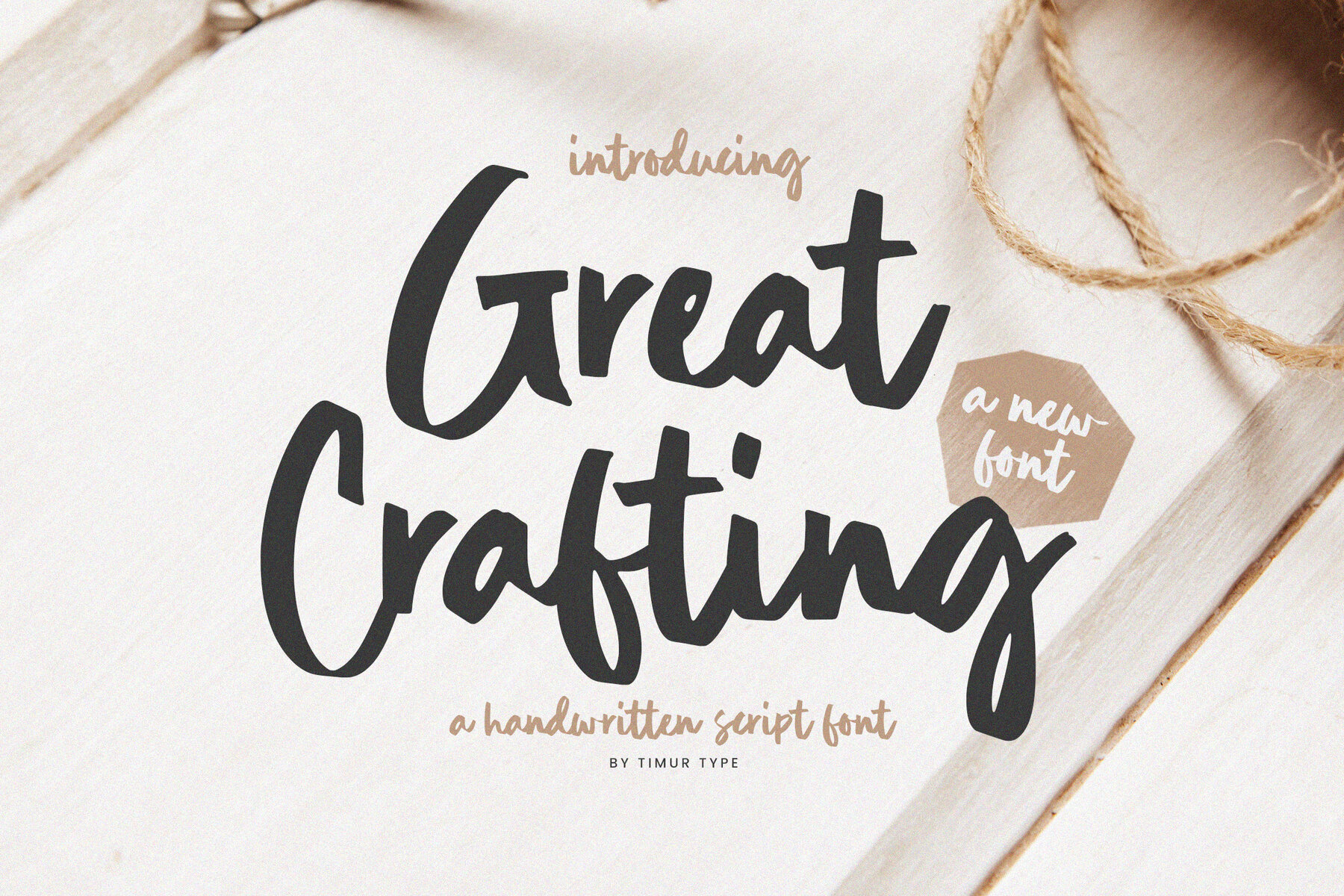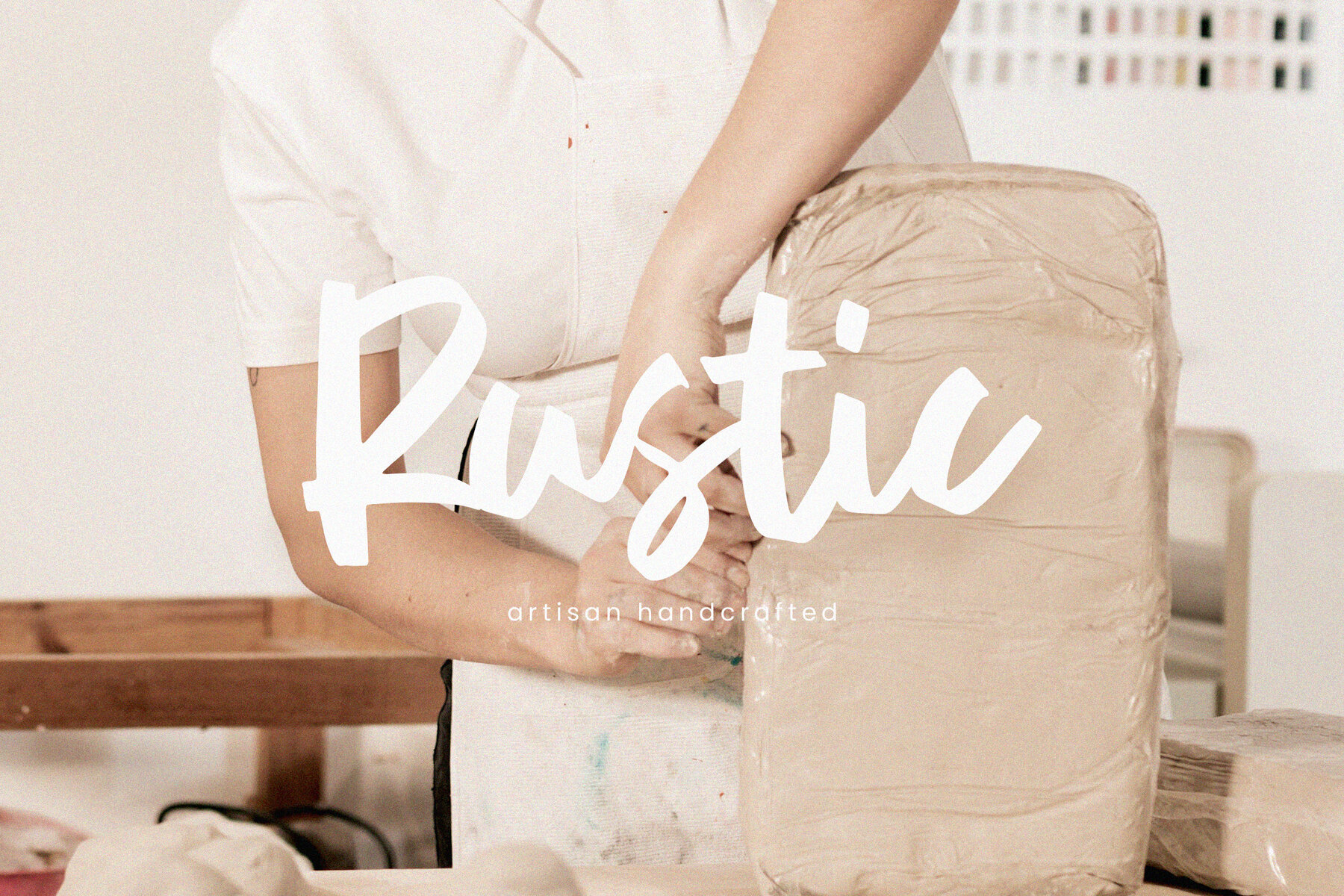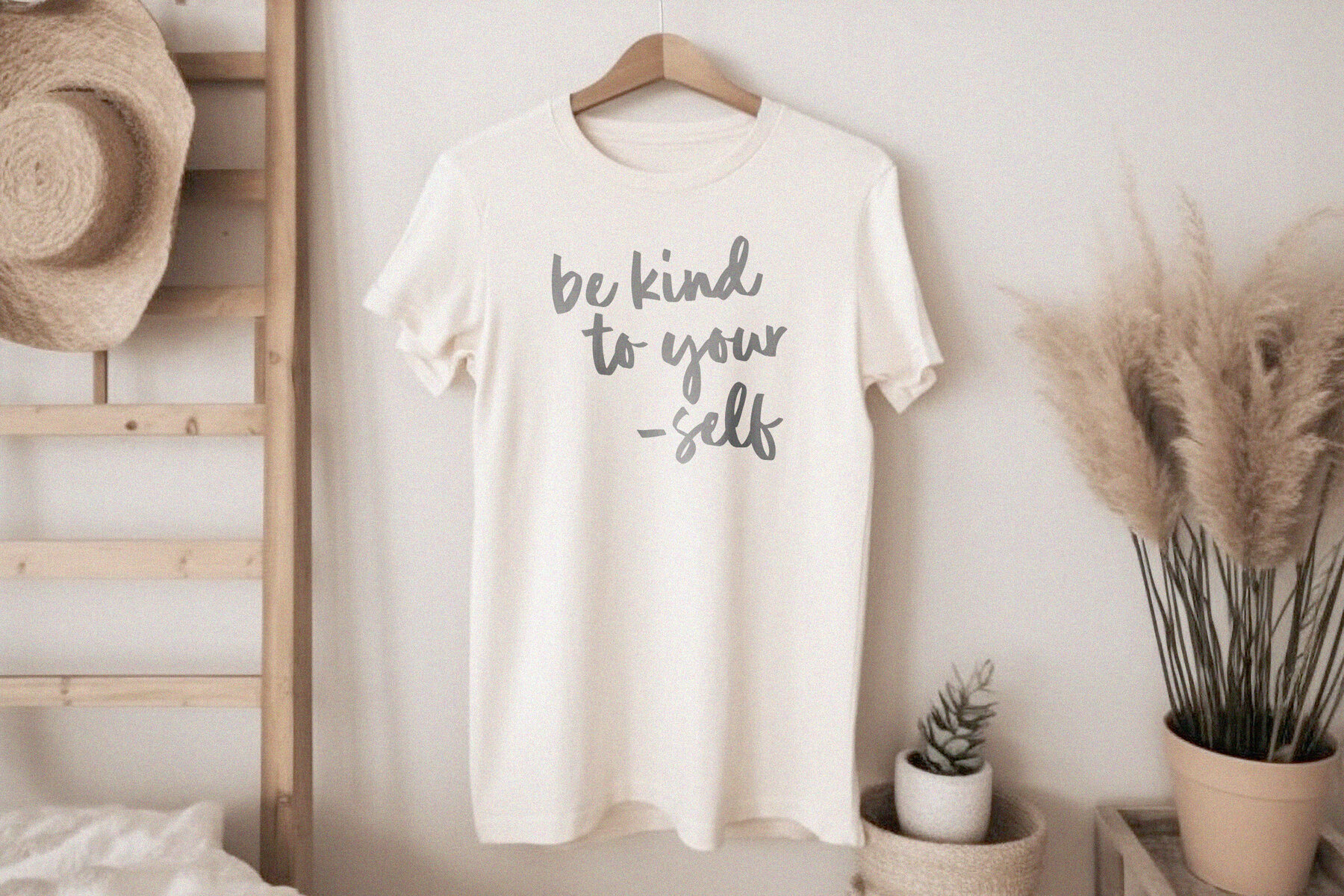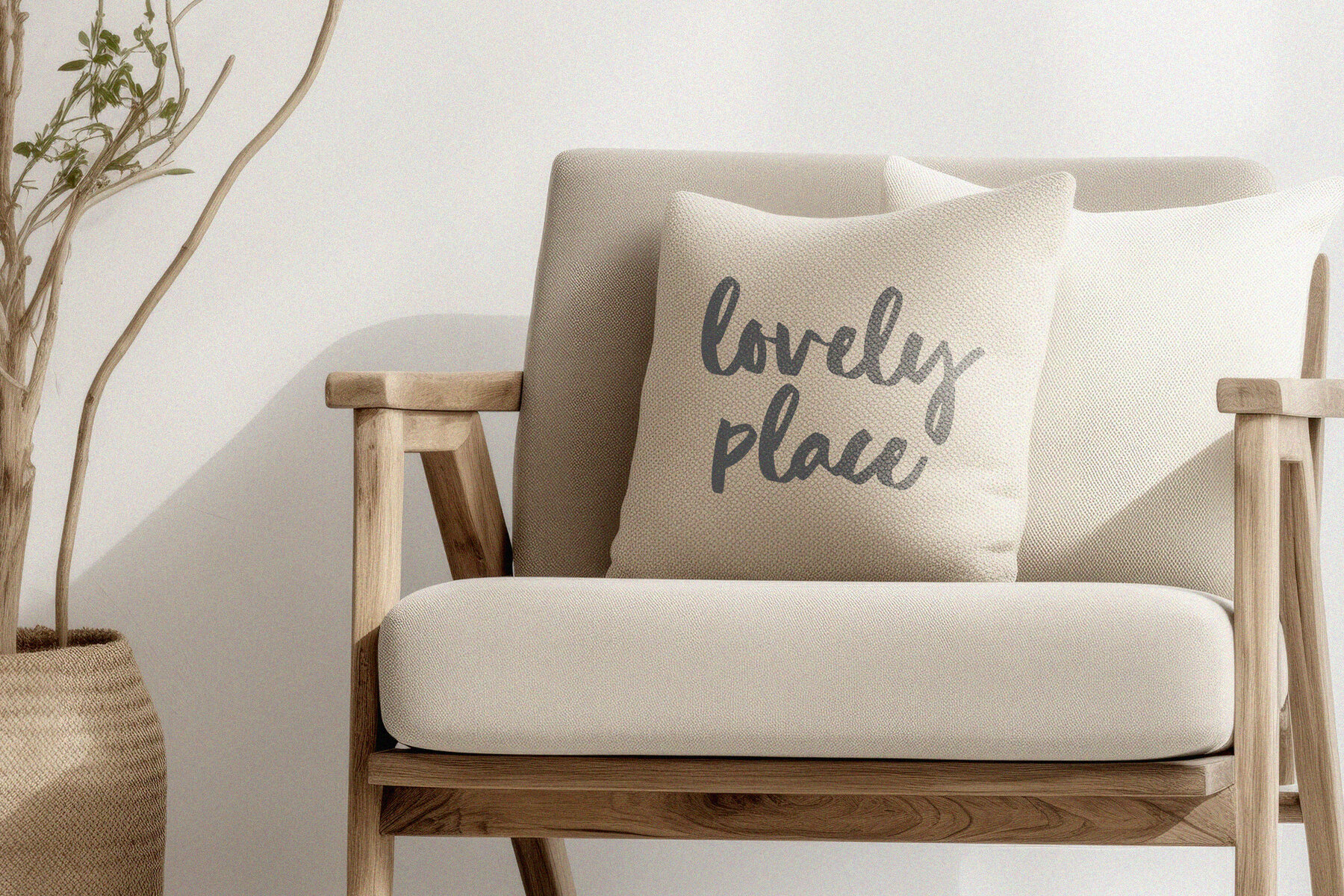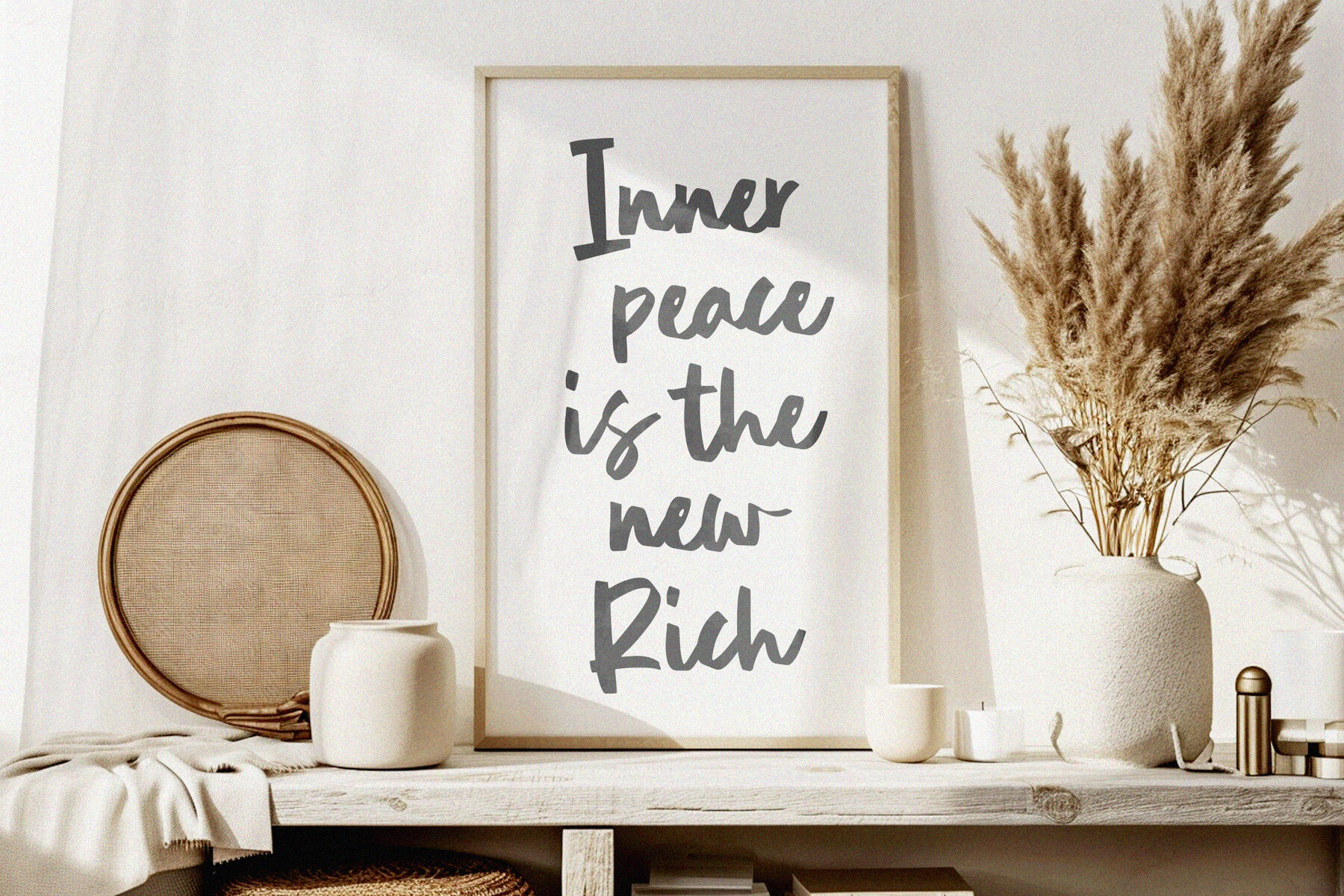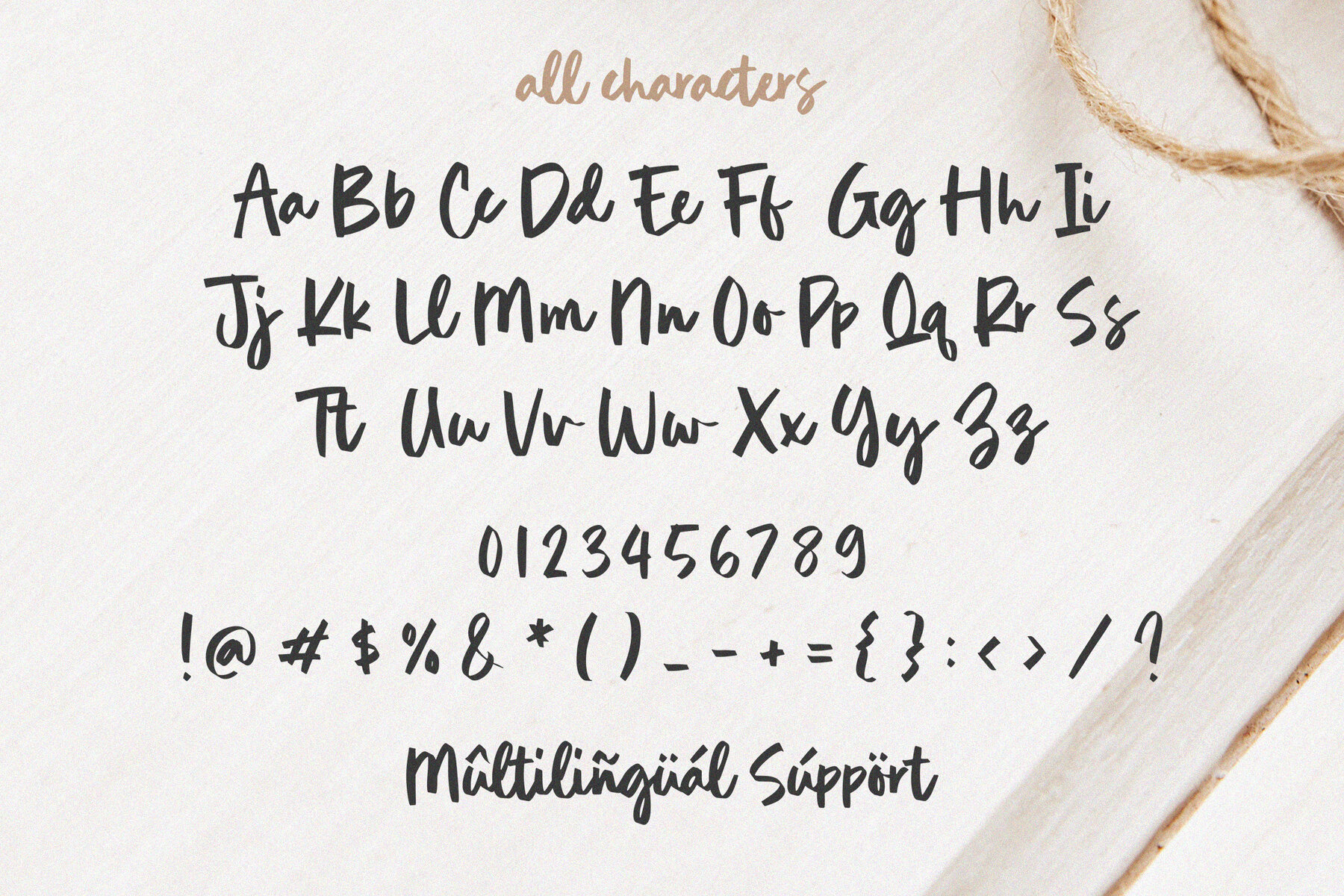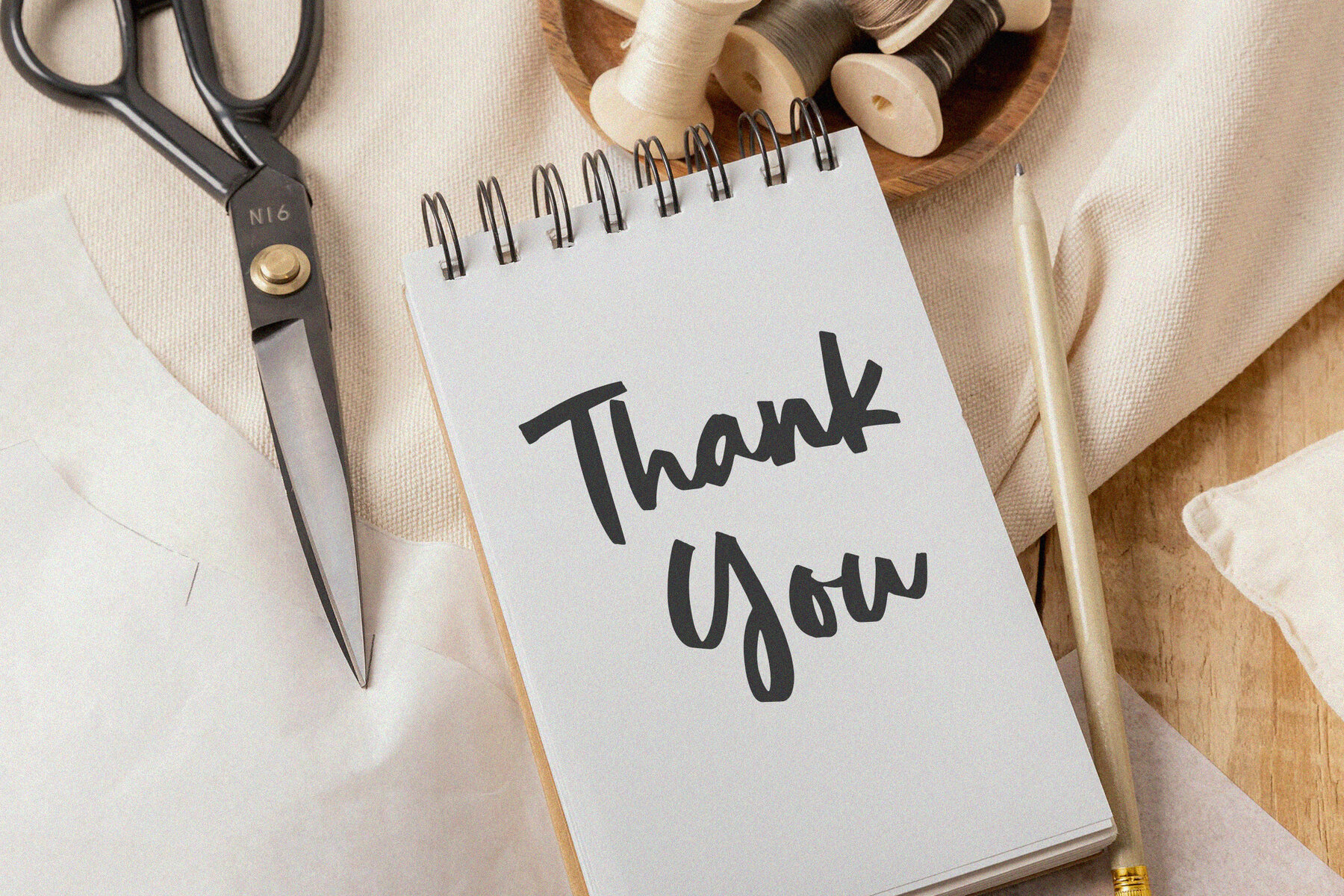
Great Crafting Font
Great Crafting
Great Crafting is a handwritten script font that brings a versatile and charming touch to any design project. Its natural and imperfect letterforms exude authenticity and creativity, making it perfect for DIY projects, handmade goods, and craft-related designs. The slight irregularities and varied stroke widths provide a handcrafted aesthetic that adds a personal touch and artisanal appeal.
Whether you aim for a rustic, homemade look or a whimsical, playful feel, Great Crafting offers the versatility and warmth to meet your needs. Embrace its unique character to infuse your designs with a sense of handmade charm and artistic flair.